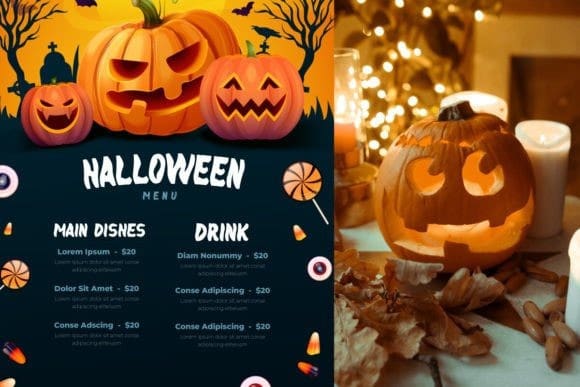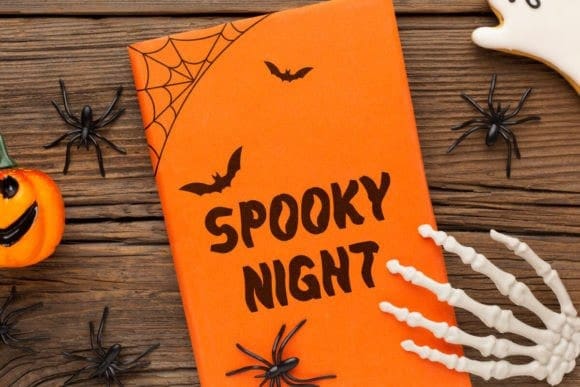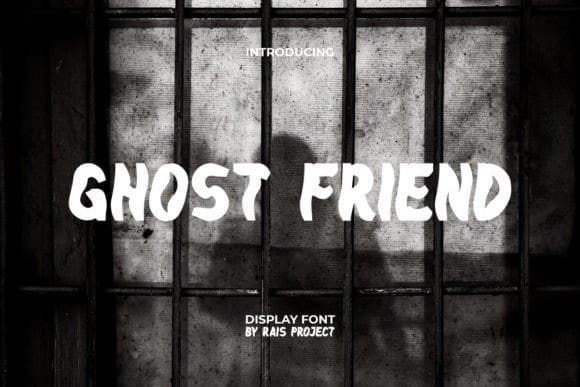
Ghost Friend Font
Ghost Friend Font is a fun and playful display font with a spooky theme. This font has a looks that can be used on a variety of display types and make you feel haunted! Such as brand logo, cover, business card, custom design, invitation, label, menu, poster, product packaging, quote, signage, website, and more!